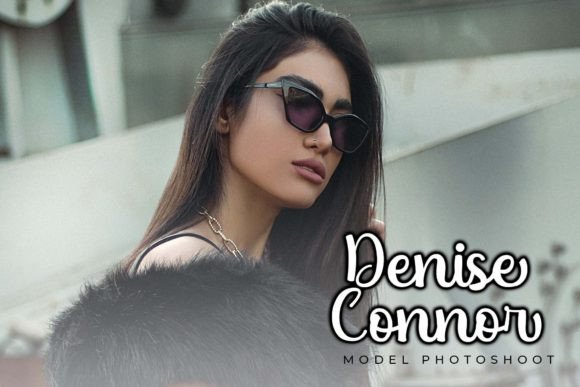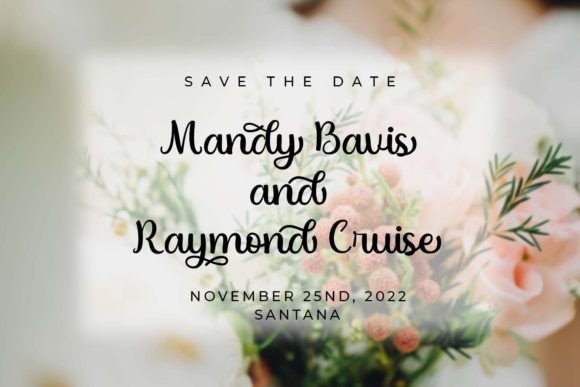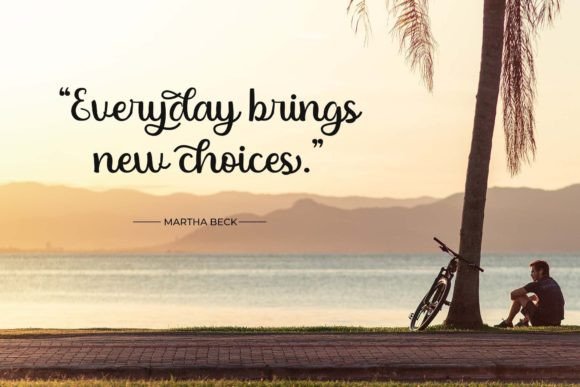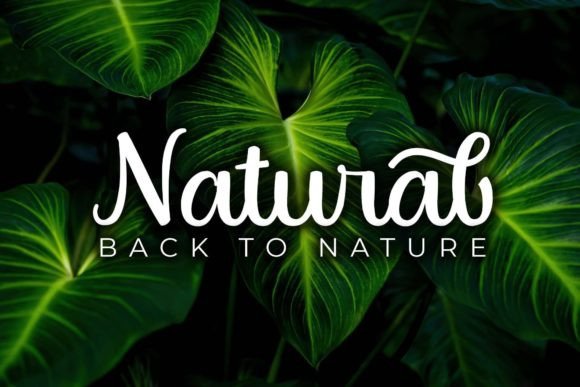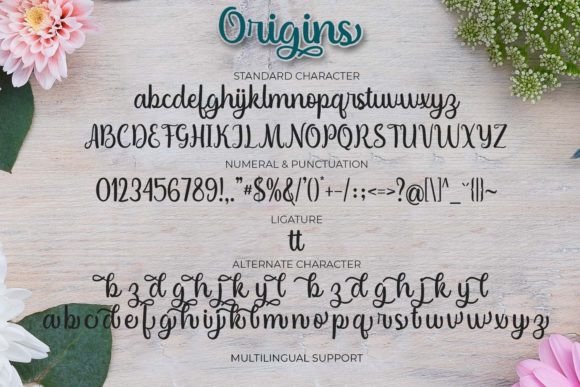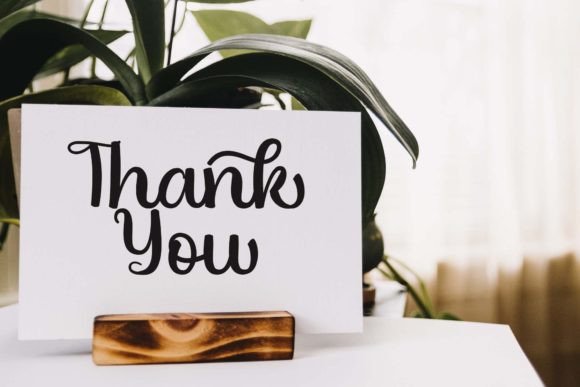
Introduction to Origins Font
As a designer, have you ever been in a rush to create the perfect wedding invitation or business card, only to realize your font just doesn’t convey the elegance and charm you’re looking for? I know I have! That’s why I’m excited to share with you the Origins Font, a beautiful and versatile design resource that’s sure to elevate any creative project.
With its stunning combination of handwritten touches and elegant flair, the Origins Font is the perfect addition to any design arsenal. Whether you’re working on a high-quality logo, greeting card, or even a simple thank-you note, this font is sure to bring a touch of sophistication and whimsy to your work. And the best part? It’s available for free download, complete with a transparent background, making it easy to use in a variety of design contexts.
As a valuable resource for designers, the Origins Font offers a unique blend of style and functionality that’s hard to find. Its PUA encoding allows for seamless access to all of its glyphs and swashes, making it a breeze to use in your creative projects. Whether you’re a seasoned pro or just starting out, the Origins Font is a must-have for anyone looking to add a touch of elegance and charm to their designs.
Key Features of Origins Font
- High-quality design resource for creative projects, perfect for designers and artists
- Transparent background, allowing for seamless integration with any design or image
- High-resolution font, suitable for printing and digital use, with a resolution of 300 DPI
- Unique, hand-crafted design with intricate details and textures, adding a touch of elegance to any project
- Designed to be versatile, with multiple font weights and styles to suit various design needs
- Perfect for use in logos, branding, and other creative projects where a distinctive, high-quality font is required
Honest Review: Origins Font
I recently stumbled upon the Origins Font while searching for a free design resource to enhance my creative project. After giving it a try, I’d like to share my honest thoughts on this font.
- ✨ High-quality typography: The Origins Font boasts clean lines, and its transparent background makes it easy to layer over other design elements.
- ✨ Versatile: This font is suitable for various creative projects, from logos to brochures, and can be easily customized to fit your design needs.
- ⚠️ Limited font styles: The Origins Font offers a relatively small set of font styles, which might not be enough for designers seeking a wide range of options.
- ⚠️ Not suitable for complex typography: While the font looks great for simple designs, it might not be the best choice for complex typography or intricate designs.
Overall, I think the Origins Font is a solid addition to any designer’s toolkit. Its high-quality typography, versatility, and free download make it a great choice for various creative projects. However, its limited font styles and suitability for simple designs are notable limitations to consider.
Origins Font
The Origins Font is a free design resource that offers a high-quality, elegant typography perfect for creative projects. This font features a transparent background, making it easy to customize and blend with any design.
Tips for Getting the Most Out of Origins Font
To get the most out of the Origins Font, use it in combination with other design elements to create a visually appealing design. Experiment with different font sizes, colors, and styles to create a unique look.
The Origins Font is perfect for creative projects such as logo design, branding, and typography-based designs. It’s also great for use in presentations, reports, and other business documents.